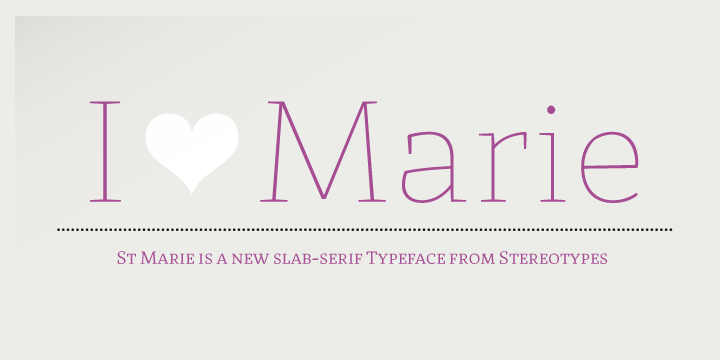
St Marie is a highly creative opentype face St. Marie. It works for ensuring a very nice, graceful thin slab serif face combined with a bit of chunky curve appeal.
The typeface is perfect for text and outsized headlines where users would like to integrate a versatile and first-rate lettering for their project.